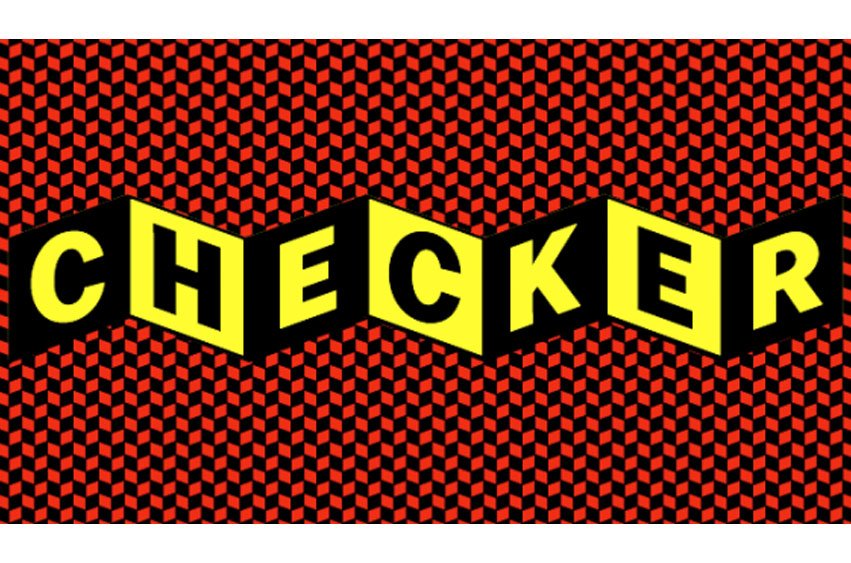
Checker Font is an all-cap ‘three-D’ font which automatically alternates white letters on black tiles with black letters on white tiles, by means of the Contextual Alternates feature.
Checker is an attention grabber suitable for logos, titles and short headings. With its tiled construction, it’s a natural for colorful interpretation. The letters are properly italicized and back-slanted, and adjusted for maximum readability within the constraints of the font’s concept. The letter style is bold grotesque, so Checker will mix smoothly with any other fonts in a layout.